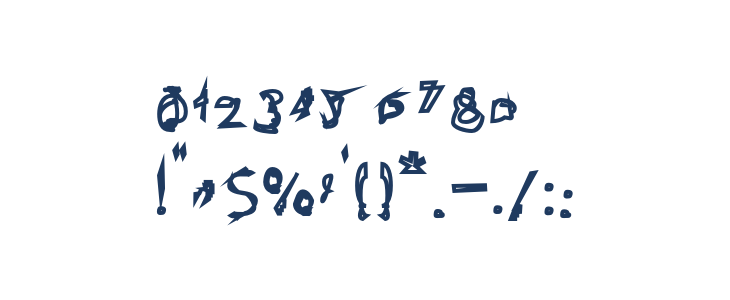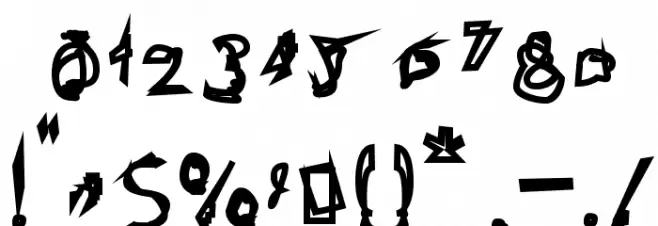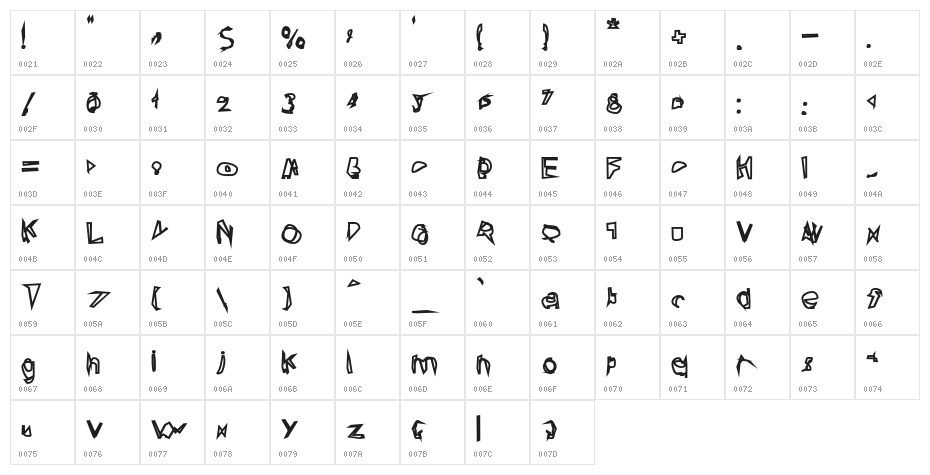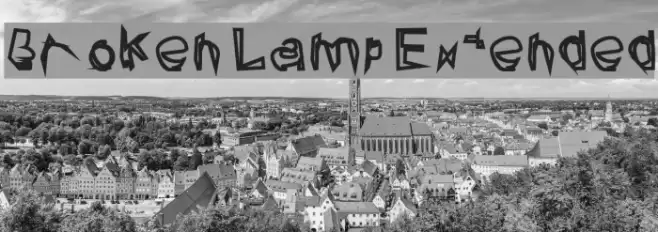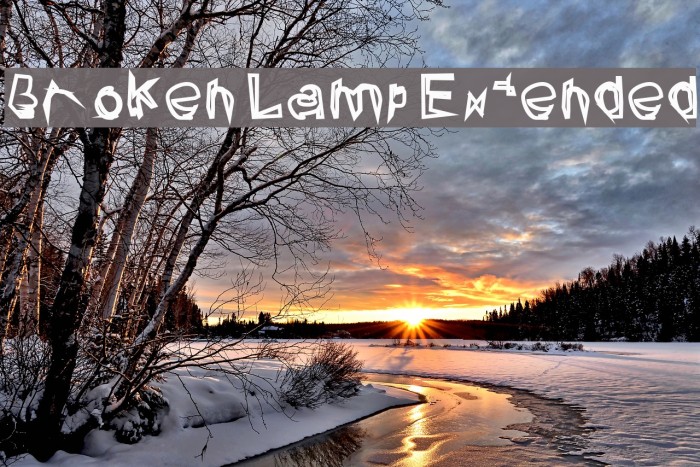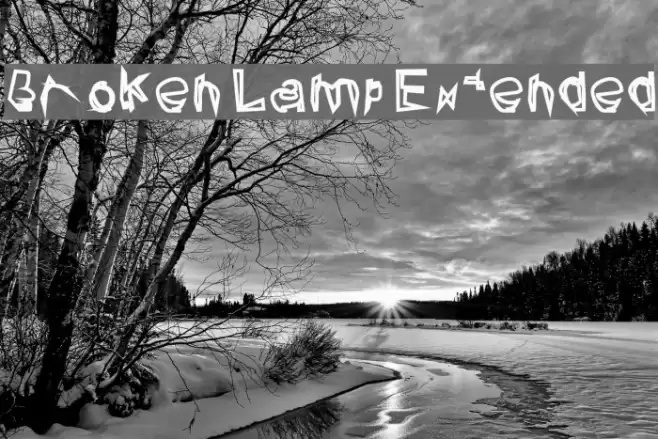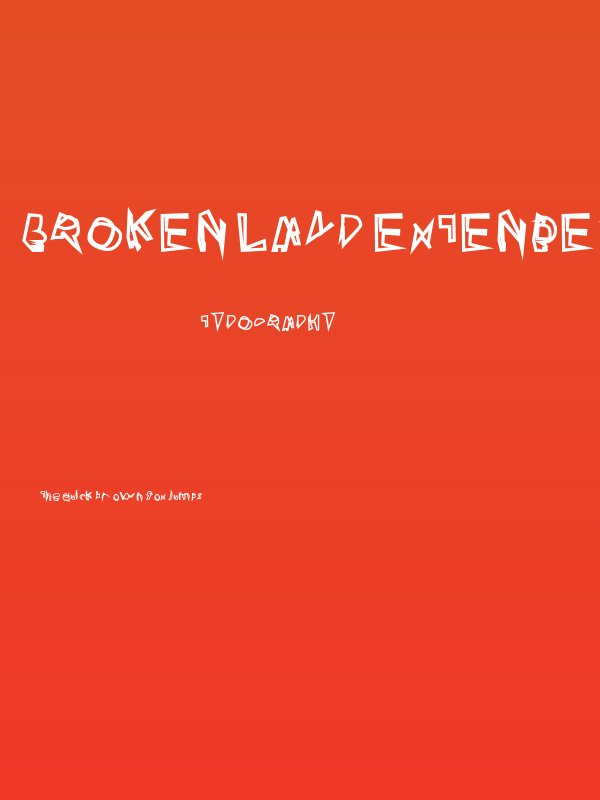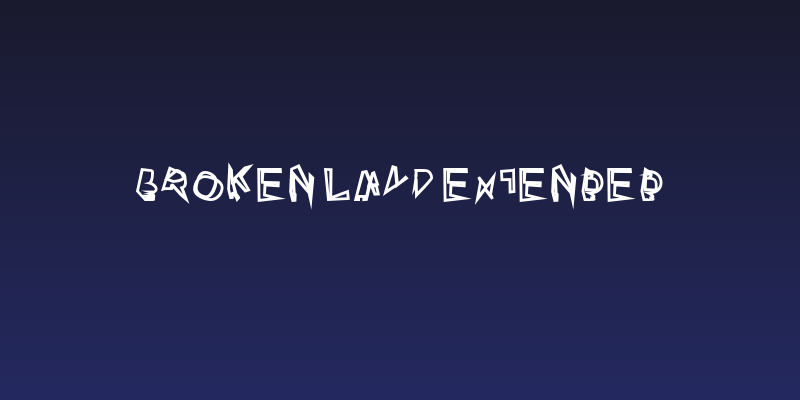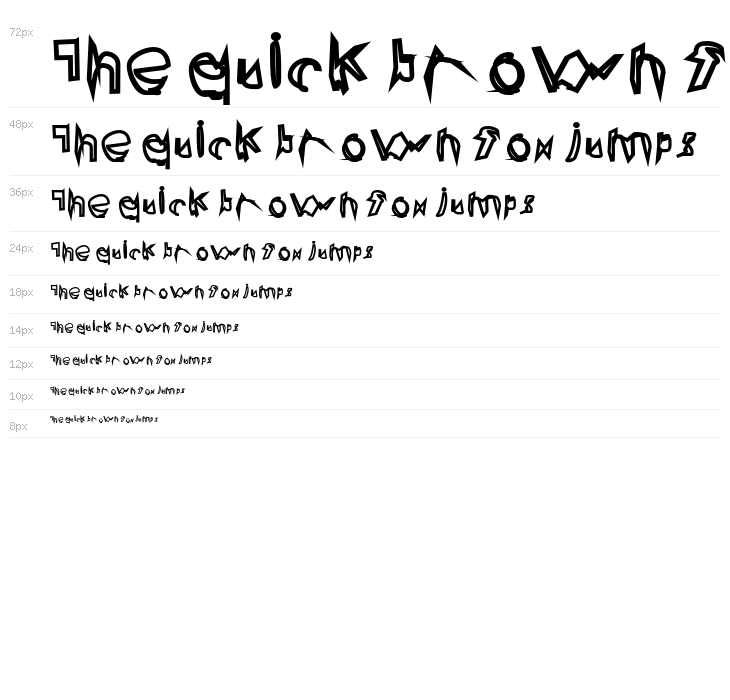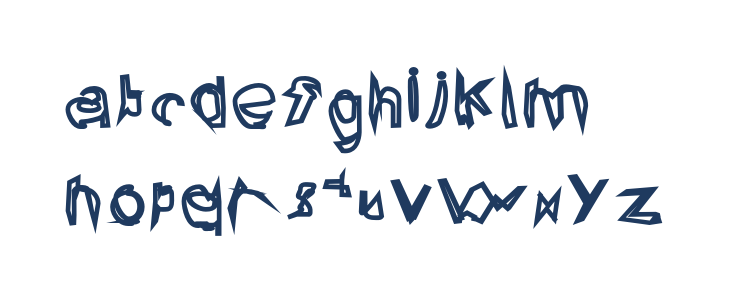
Broken Lamp Extended Font
Broken Lamp Extended Description
This font features a highly irregular and chaotic design, with each character appearing as if it has been shattered or distorted. The letters are bold and jagged, with sharp angles and uneven strokes that create a sense of movement and energy. The uppercase and lowercase letters maintain this fragmented style, giving the font a unique and edgy appearance. Numbers and special characters follow the same design principles, ensuring consistency throughout. The overall look is striking and unconventional, making it suitable for projects that require a bold statement.